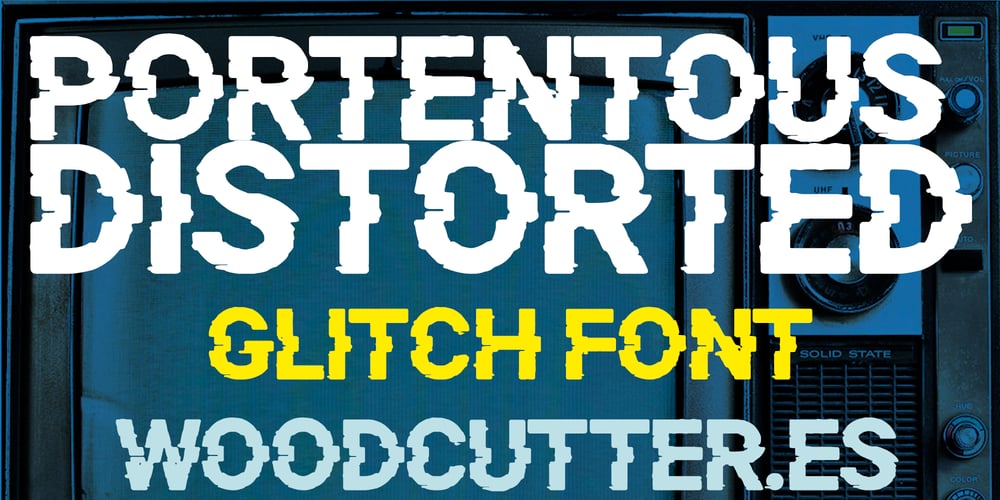
Portentous Distorted Font Family was designed by Jordi Manero and published by Woodcutter. Portentous Distorted contains 1 styles and family package options. “Portentous Distorted” is an uppercase font with a distorted, glitch-like aesthetic, as if the signal reception is failing. Each character seems to vibrate or break into fragments, creating a sense of digital disarray. This font is perfect for futuristic or tech-related projects aiming to convey an atmosphere of chaos or visual disruption. Ideal for posters, covers, or any design requiring a modern, mysterious, and attractively chaotic look.